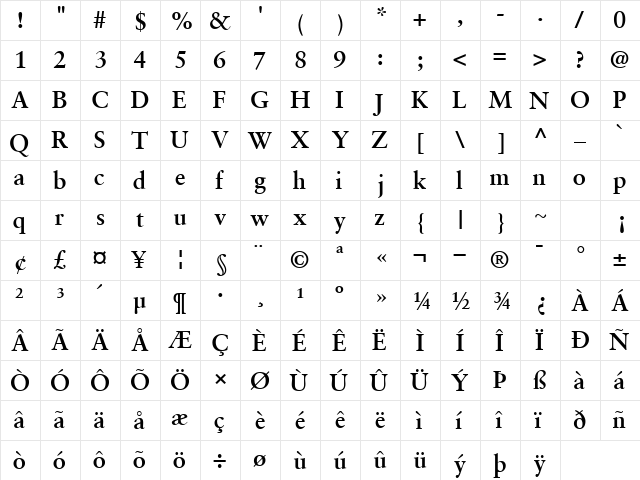
GaramondRetrospectiveSSK Bold
Design Context for GaramondRetrospectiveSSK Typeface
GaramondRetrospectiveSSK has the warm character of retro typography — evoking diners, record sleeves, and the golden age of print advertising. Its bold stroke weight gives it real presence on the page.
Font Pairing: Combine GaramondRetrospectiveSSK with a simple slab or neutral sans — period-accurate companions reinforce the vintage feel without competing for attention.
Pro Tip: Lean into GaramondRetrospectiveSSK's period character by pairing it with aged paper textures, muted colour palettes, and vintage illustration styles.